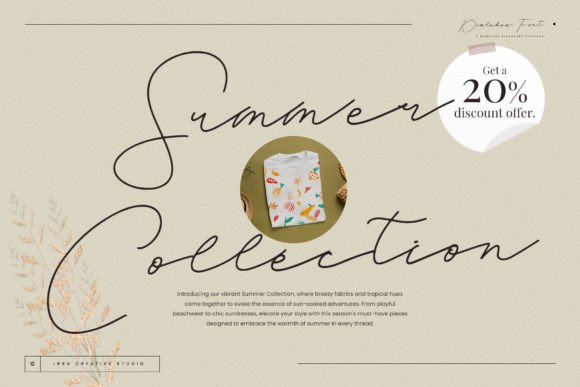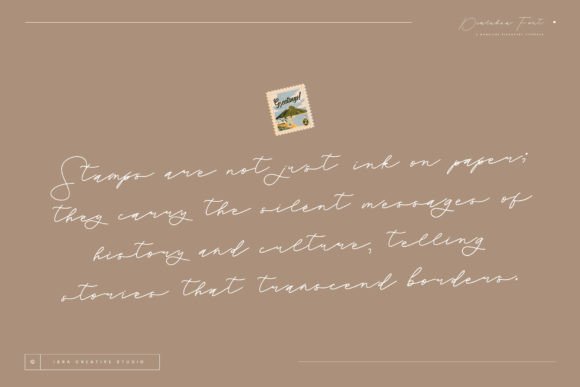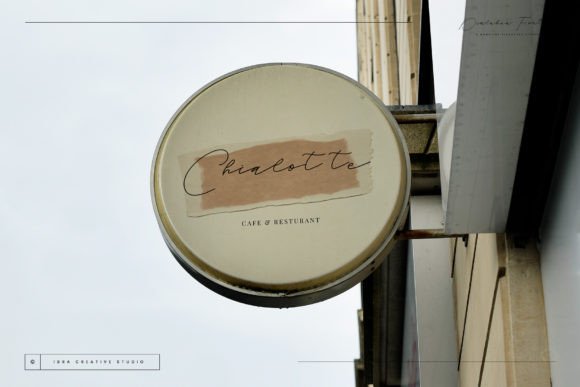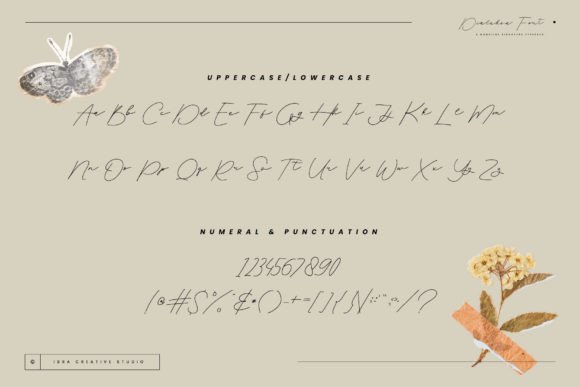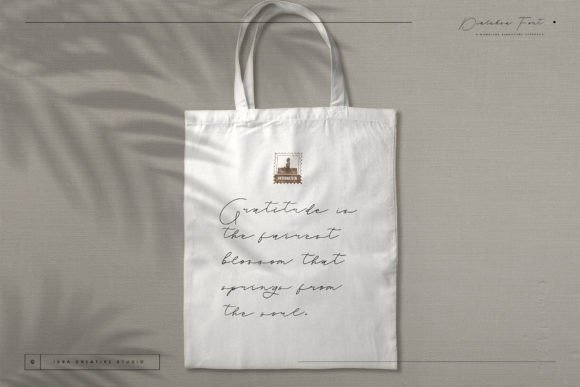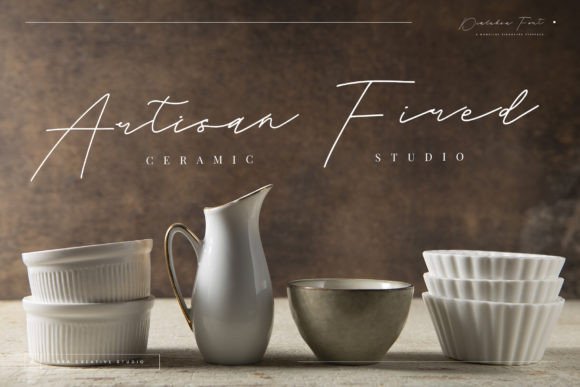
Discover the Elegance of Dialeksa Font: A Monoline Signature Typeface
In the world of typography, few fonts manage to convey the perfect blend of elegance and individuality. Dialeksa, a distinctive monoline signature typeface, is one such font that effortlessly captures the essence of sophistication and personal style. With its seamless, fluid strokes, Dialeksa exudes a sense of refinement and uniqueness, making it an ideal choice for designers and crafters looking to create a signature look in various design contexts.
The Monolinearity of Dialeksa: A Key to Elegance
One of the defining features of Dialeksa is its monolinearity. This characteristic ensures a smooth and consistent visual flow, enhancing legibility while maintaining an air of grace. The monolinear strokes of Dialeksa create a sense of fluidity, making it perfect for use in formal documents, creative branding, and other design applications where a touch of elegance is required.
Refined Curves and Balanced Proportions: The Mark of Timelessness
The typeface’s refined curves and balanced proportions are significant contributors to its timeless and versatile aesthetic. Dialeksa’s curves are meticulously crafted to provide a sense of softness and approachability, while its balanced proportions ensure that the font remains legible and visually appealing. This combination of refined curves and balanced proportions makes Dialeksa well-suited for a wide range of design applications, from formal documents to creative branding.
Dialeksa is an excellent choice for designers and crafters looking to add a touch of sophistication and individuality to their work. Whether you’re creating a logo, designing a brand identity, or crafting a signature look for a formal document, Dialeksa provides the perfect blend of elegance and uniqueness. Its versatility ensures that it can be used in various design contexts, making it a valuable addition to any designer’s or crafter’s font collection.
Enhancing Design with Dialeksa
Dialeksa can elevate your design in several ways:
- Elegant Signature Look: Use Dialeksa to create a signature look for your brand or personal identity. Its fluid strokes and refined curves make it perfect for creating a lasting impression.
- Formal Documents: Add a touch of sophistication to your formal documents, such as resumes, certificates, or invitations, with Dialeksa’s elegant and refined aesthetic.
- Creative Branding: Use Dialeksa to create a unique and memorable brand identity. Its versatility and timelessness ensure that your brand will stand out and remain relevant.
Why Choose Dialeksa?
There are several reasons why Dialeksa stands out as a monoline signature typeface:
- Unique and Elegant: Dialeksa’s fluid strokes and refined curves create a unique and elegant aesthetic that sets it apart from other fonts.
- Versatile: Dialeksa’s balanced proportions and timeless design make it suitable for a wide range of design applications.
- Legible: The monolinearity of Dialeksa ensures a smooth and consistent visual flow, enhancing legibility.
Dialeksa is a distinctive monoline signature typeface that effortlessly captures the essence of elegance and individuality. Its seamless, fluid strokes, refined curves, and balanced proportions make it an ideal choice for designers and crafters looking to create a signature look in various design contexts. With its versatility, legibility, and timeless aesthetic, Dialeksa is a valuable addition to any designer’s or crafter’s font collection.
Get Creative with Dialeksa